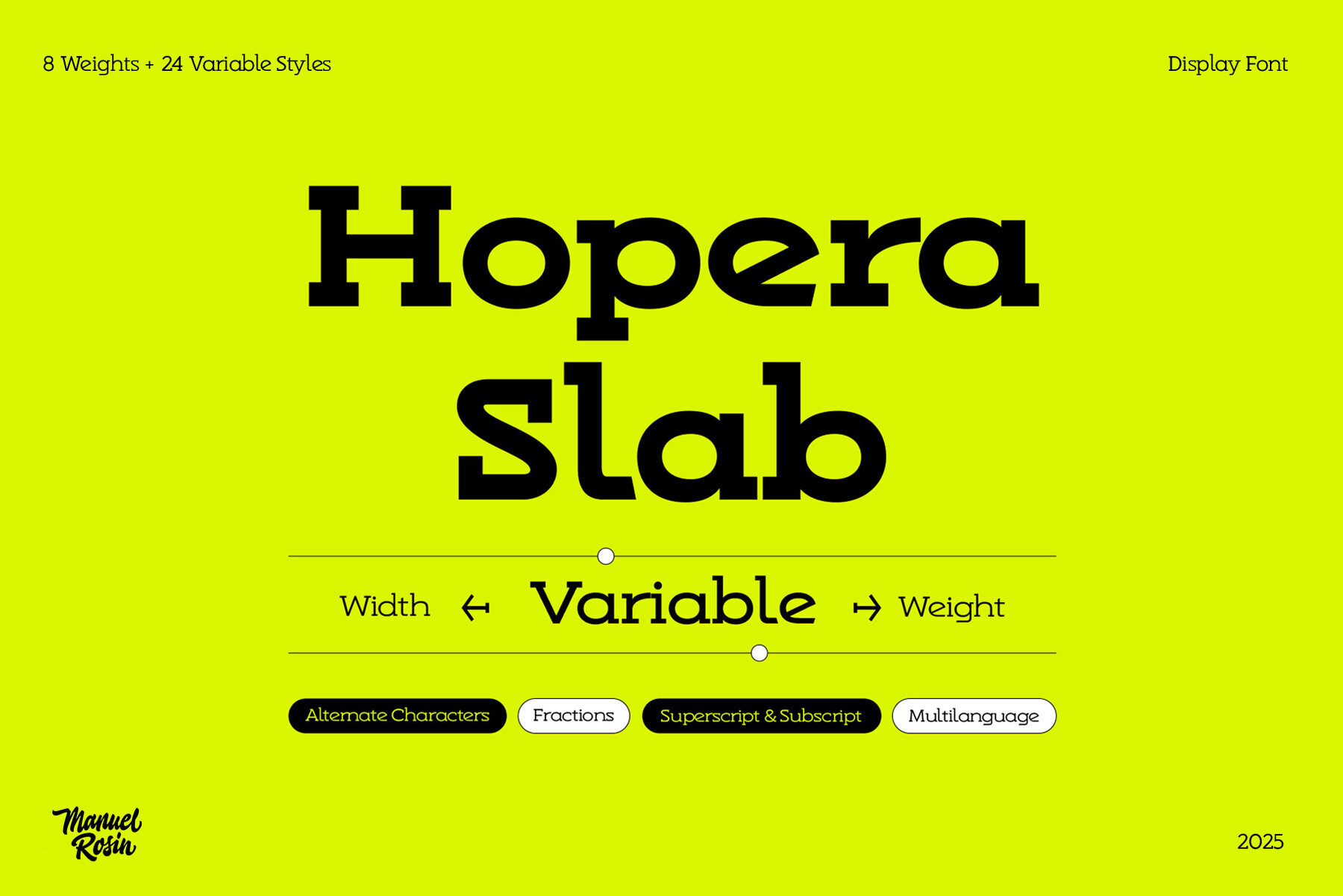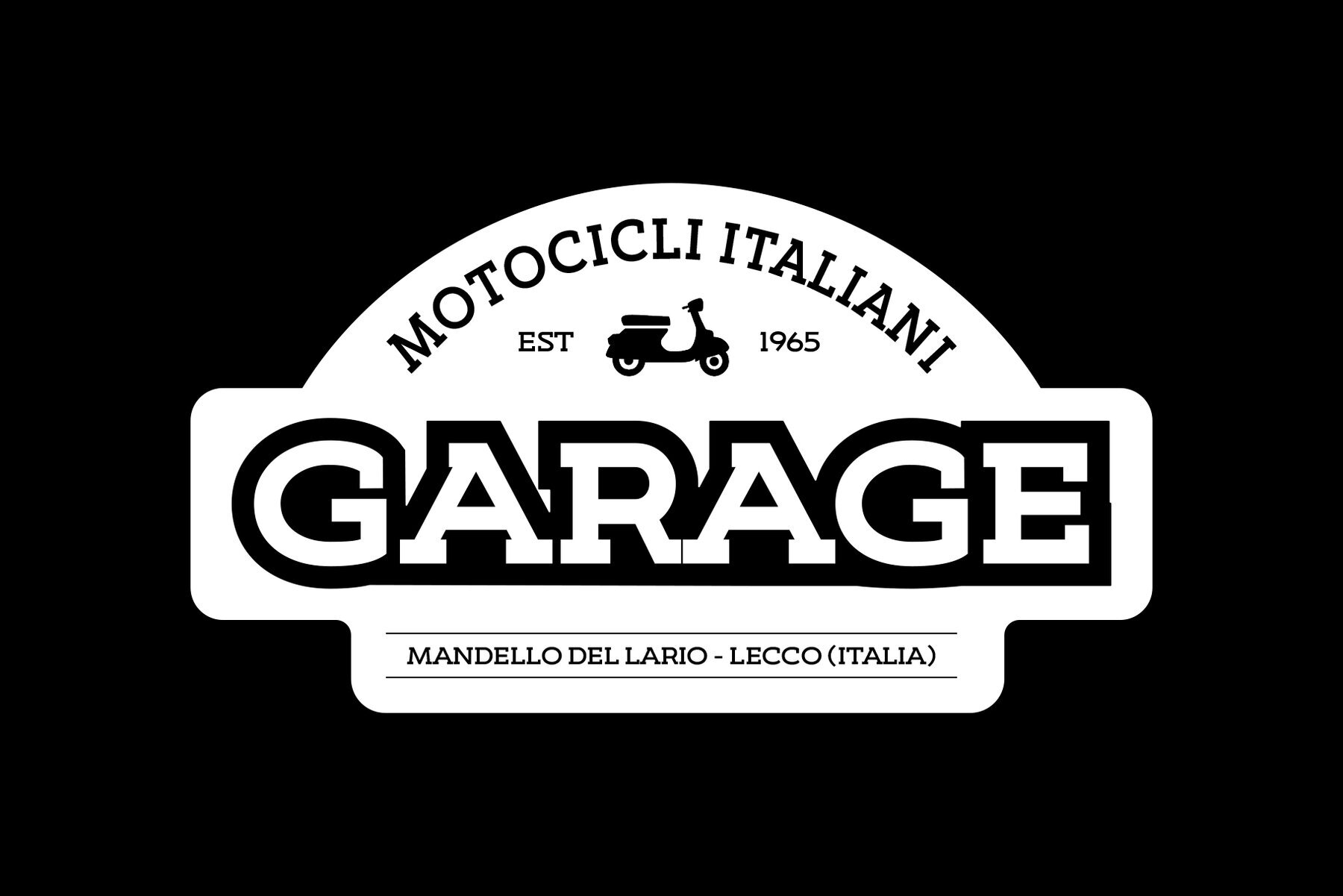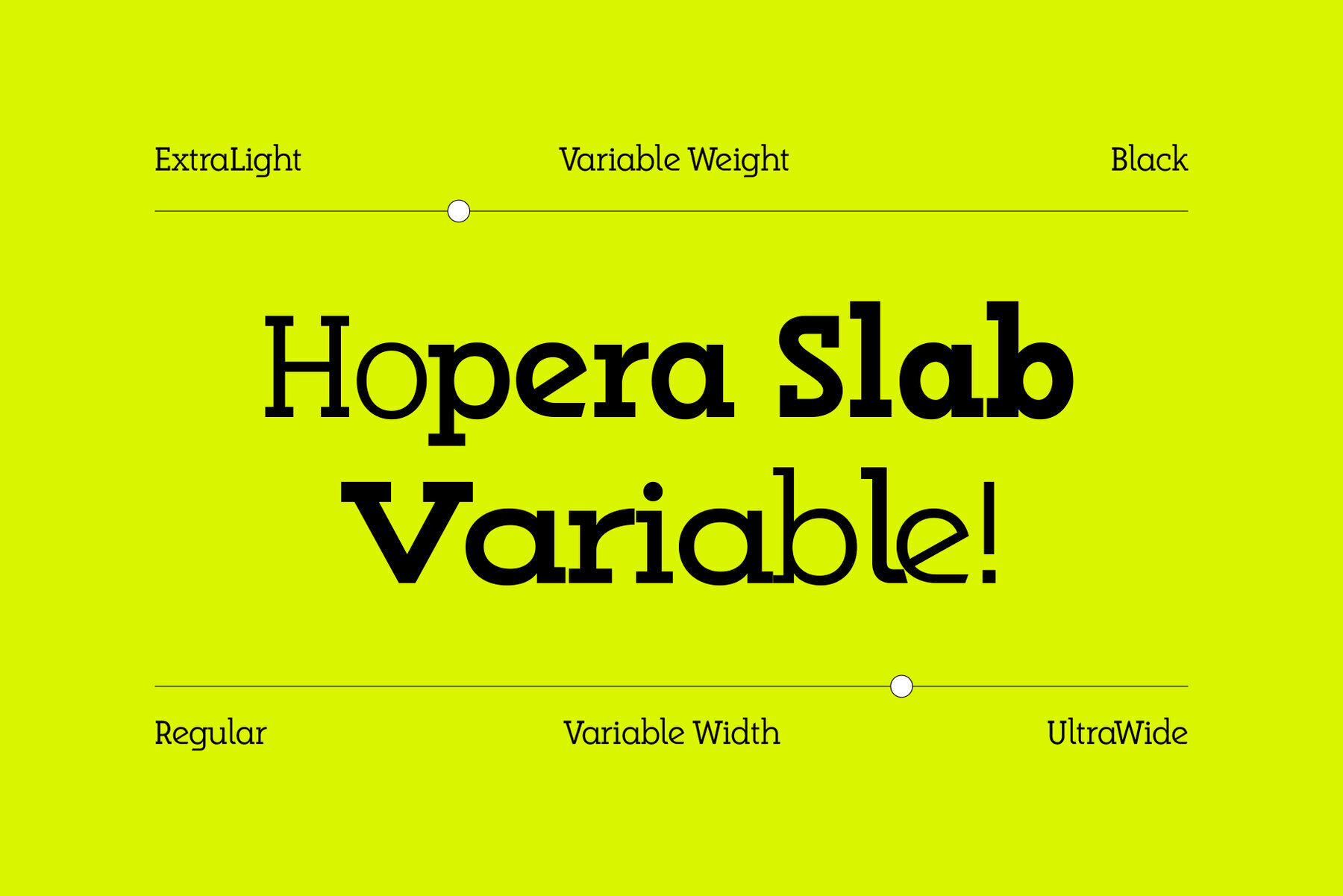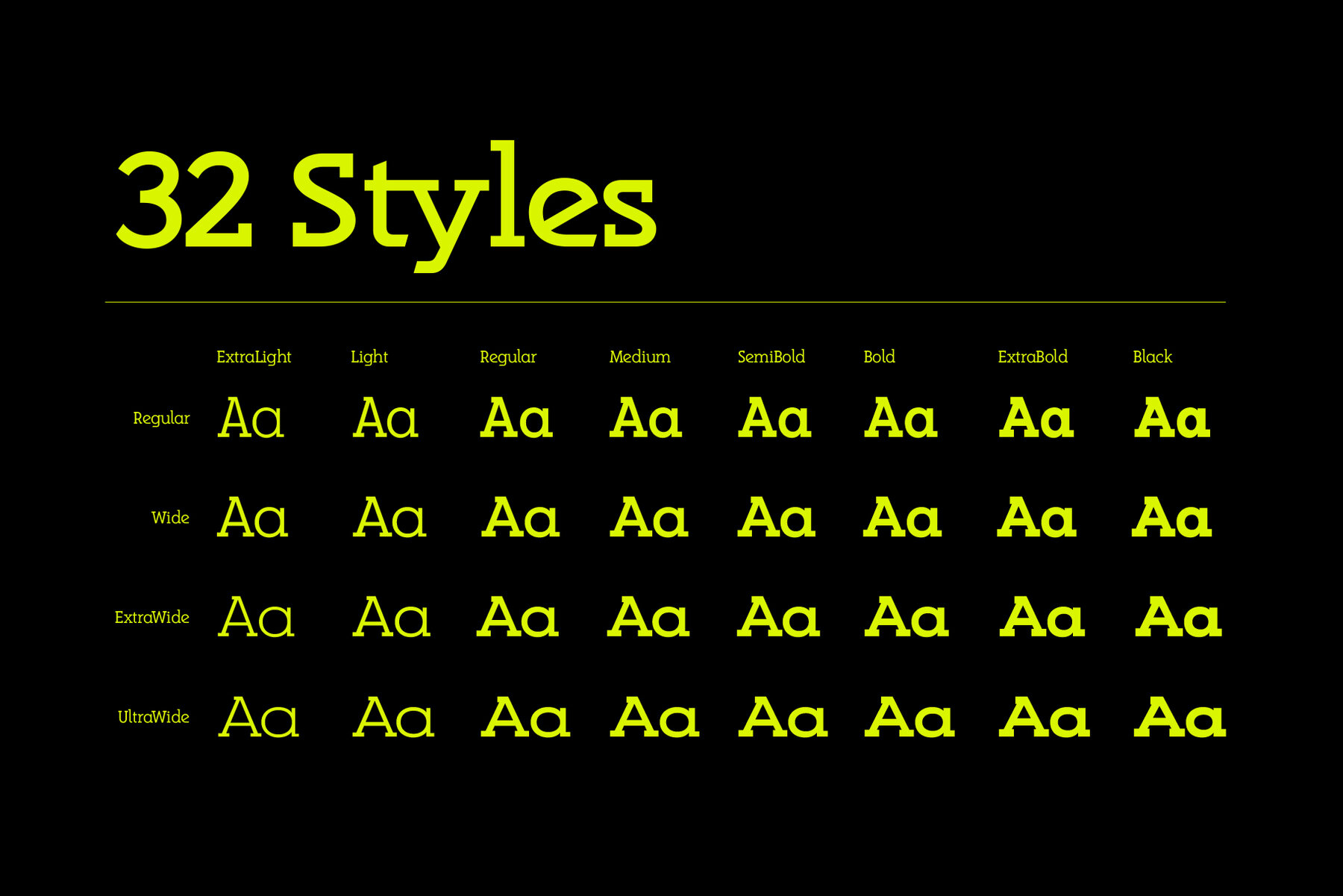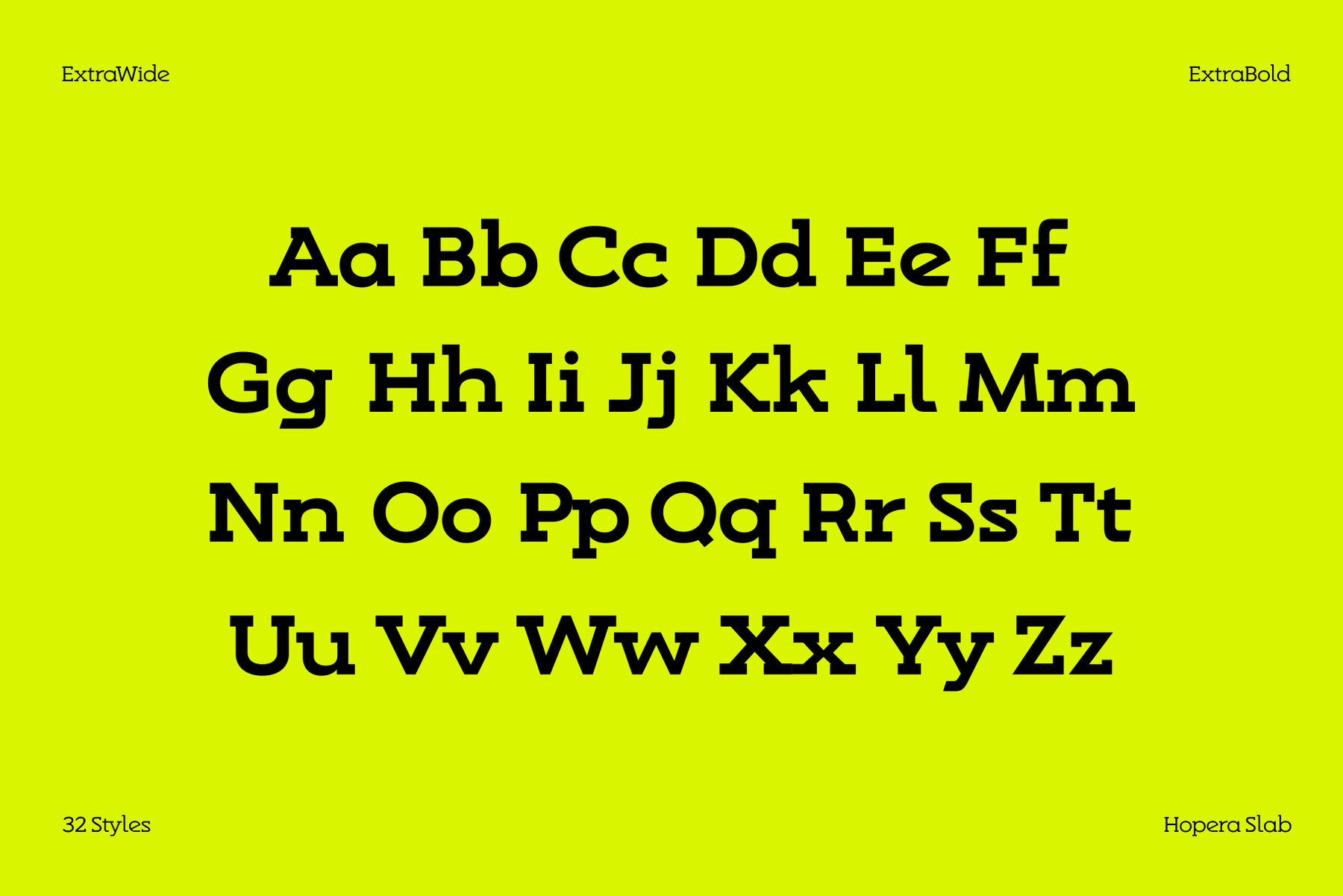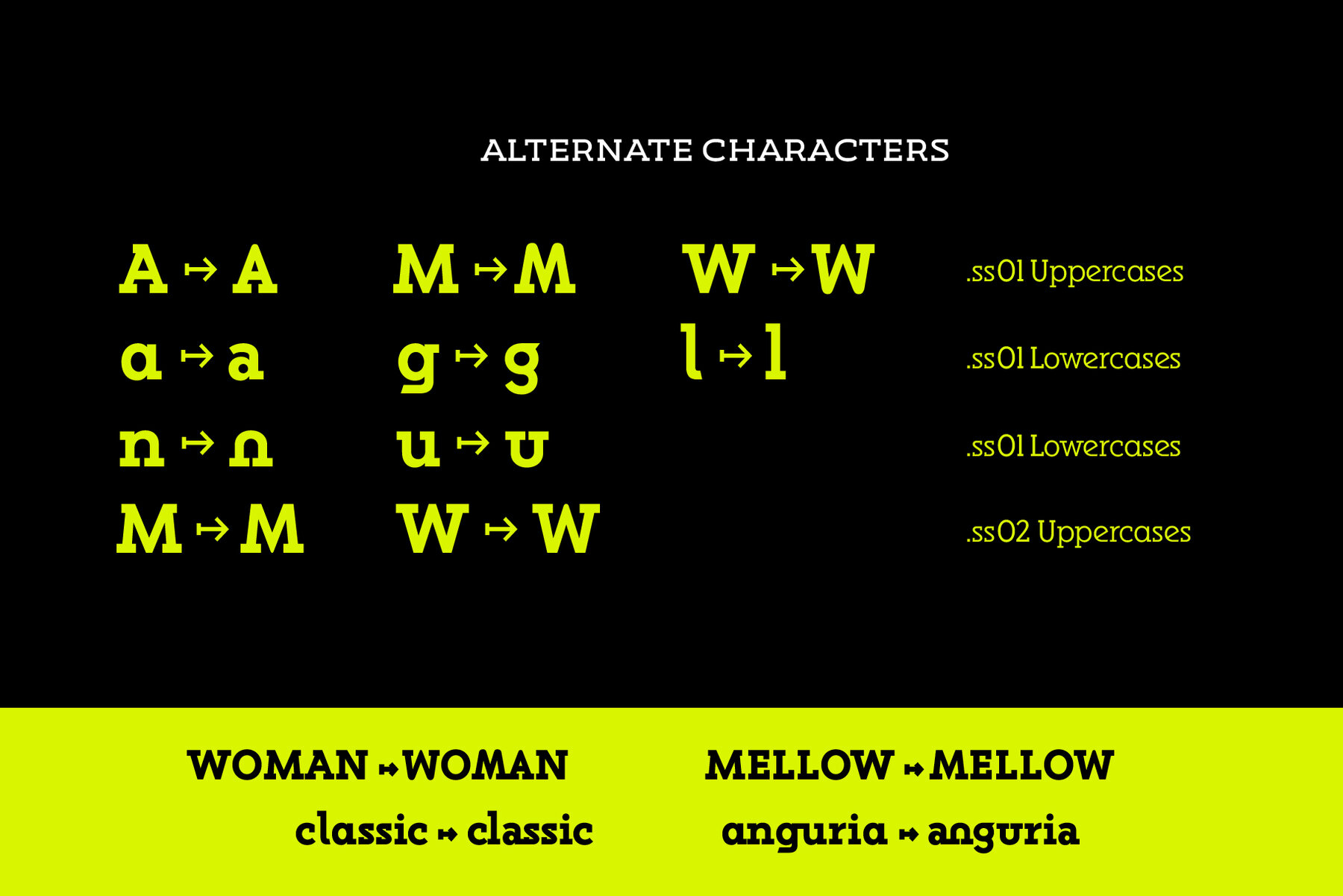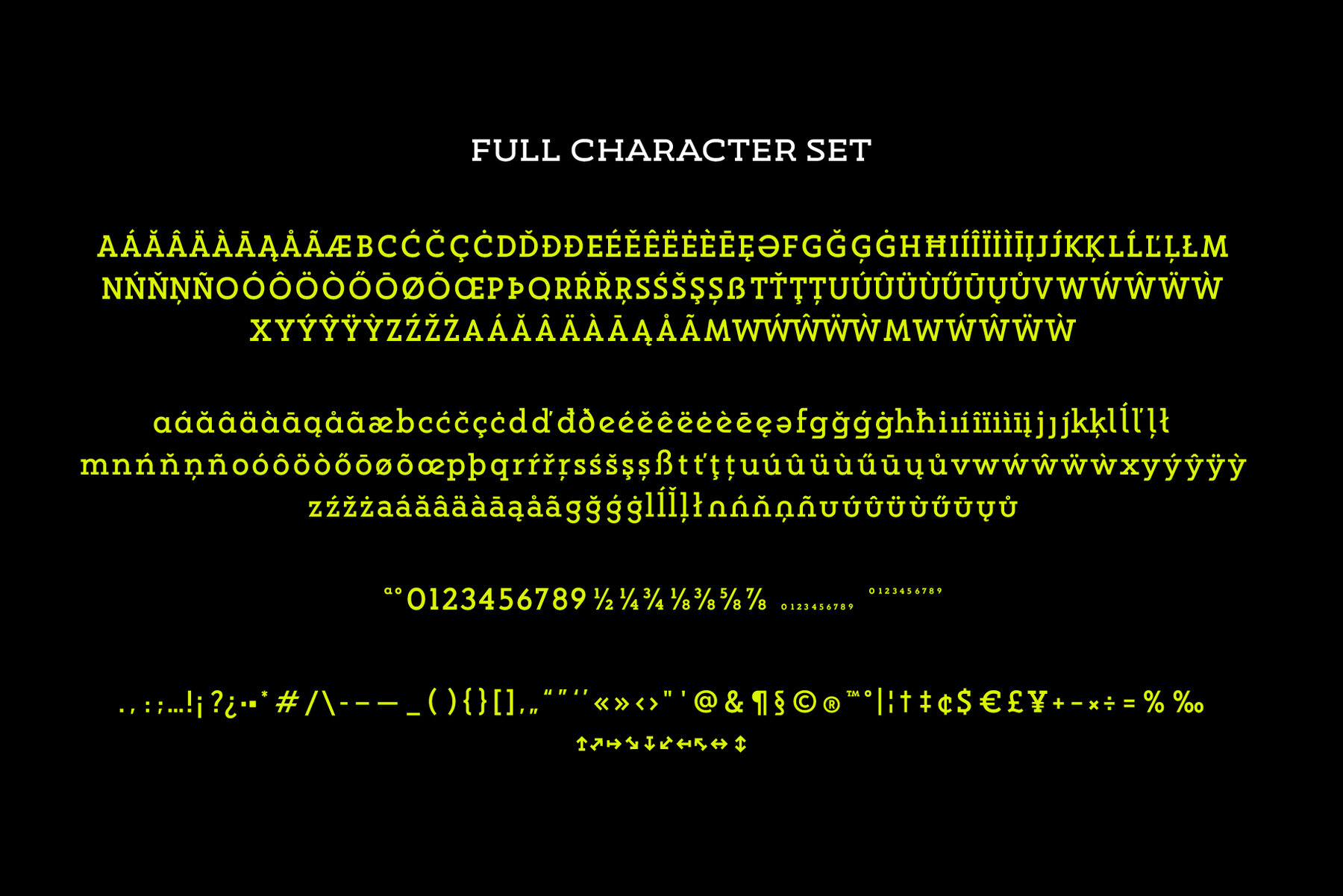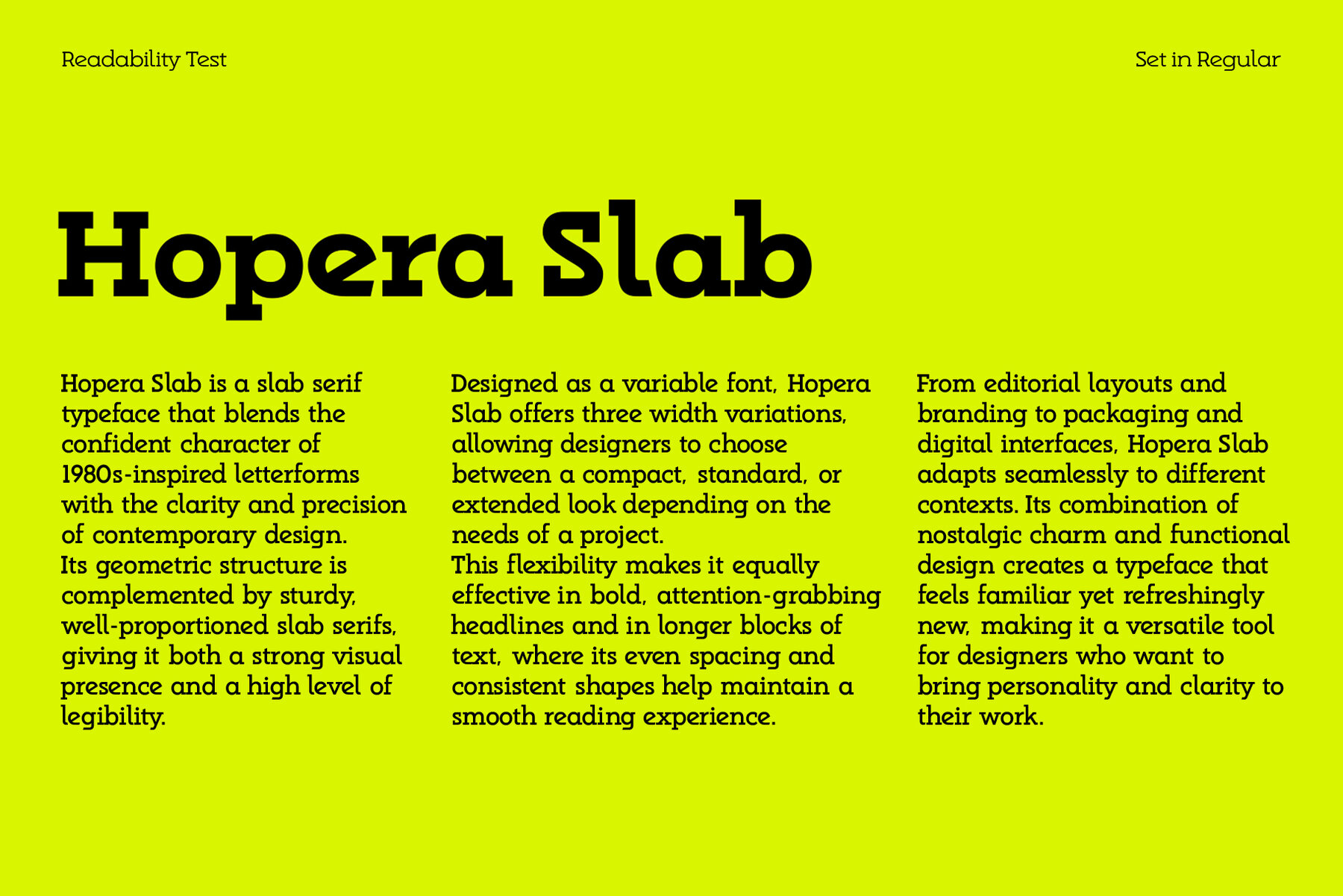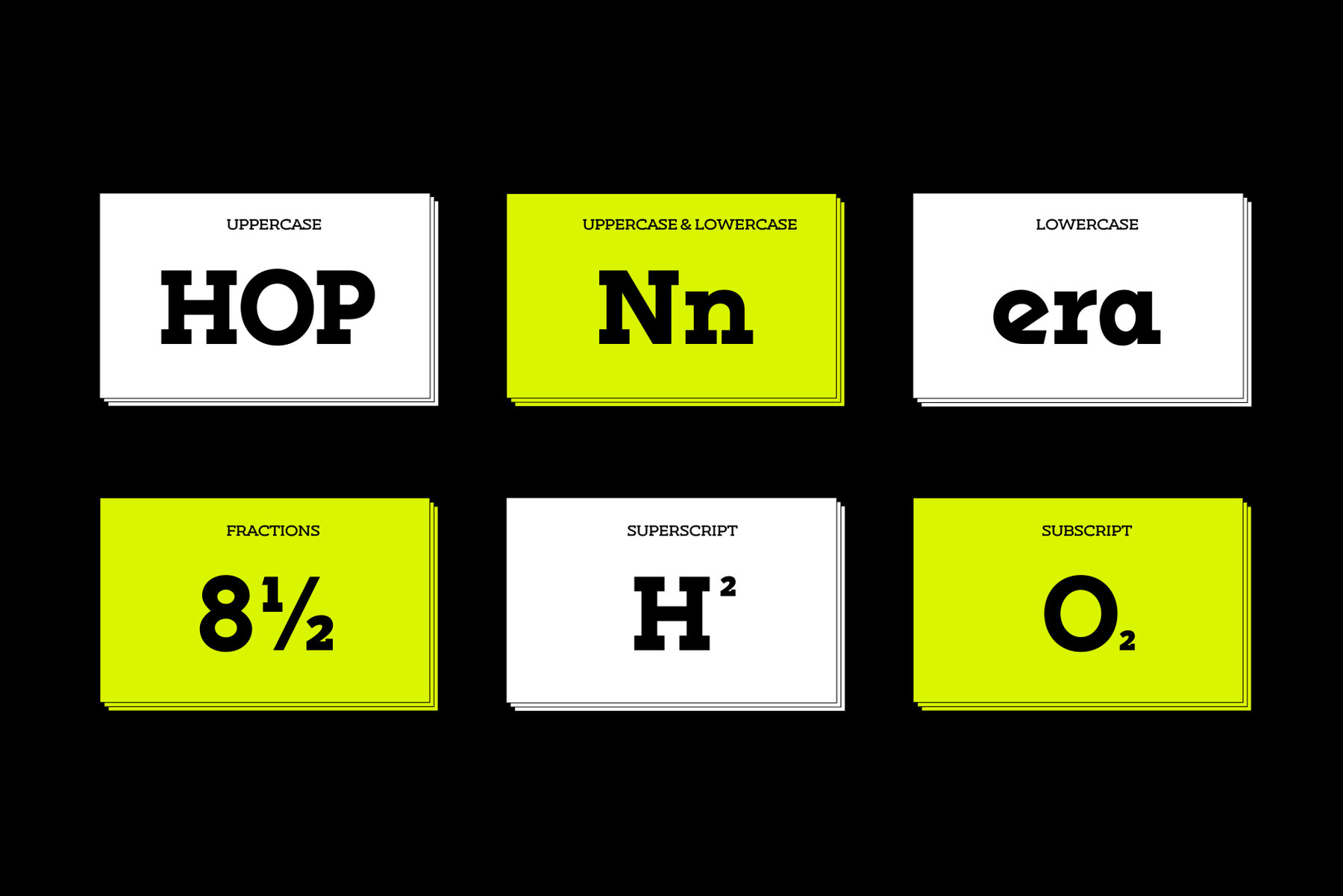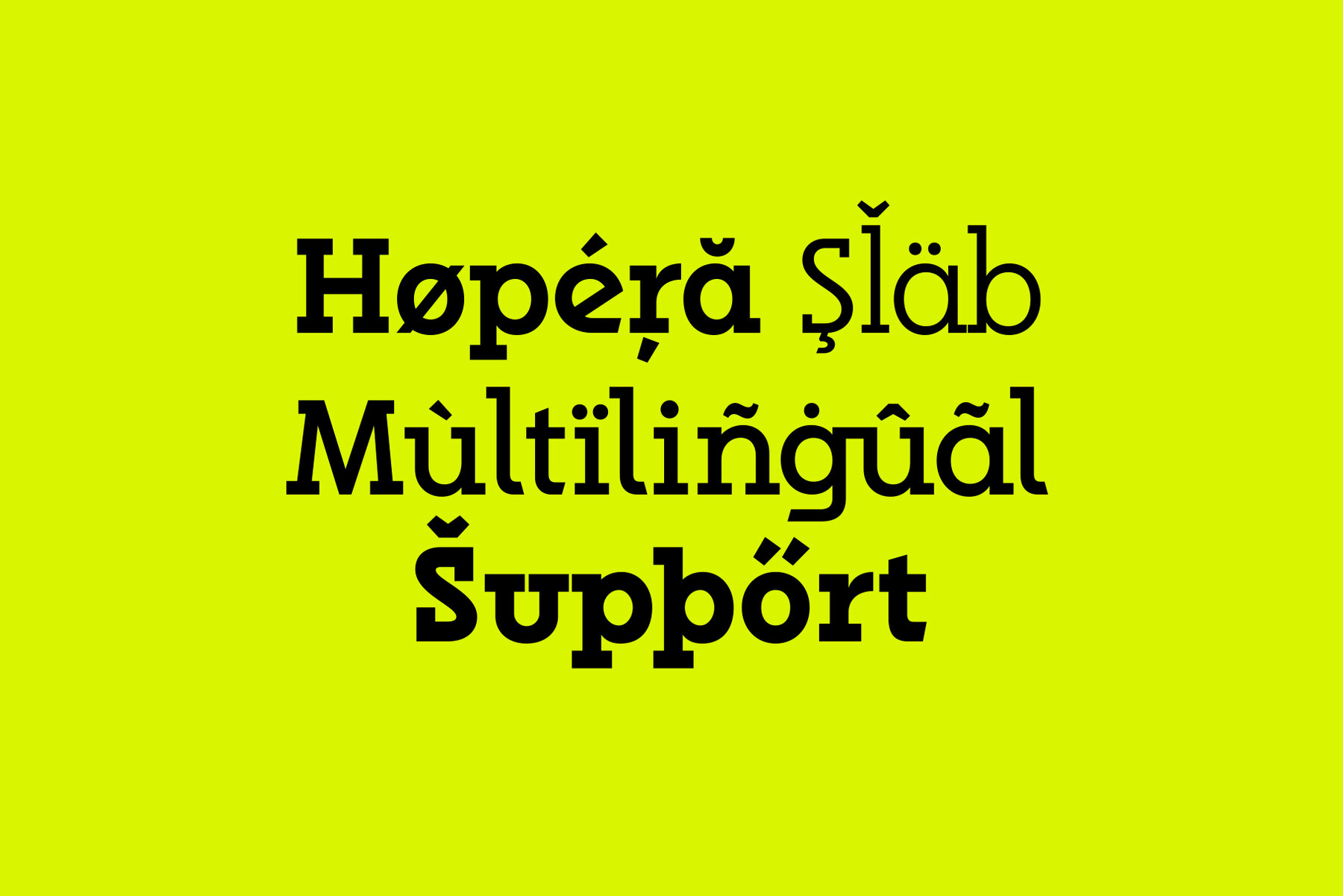
Hopera Slab Variable Font
The Hopera Slab typeface channels the vibrant energy of the 1980s, infusing it with a modern sensibility. With a full suite of 32 styles and a comprehensive range of features, it is engineered to cater to all design needs, from striking headlines to clear, readable body text. Whether for print or digital contexts, its robust design and subtle retro touches make Hopera Slab stand out in any project.Hopera Slab: Bold Retro Meets Modern Flexibility